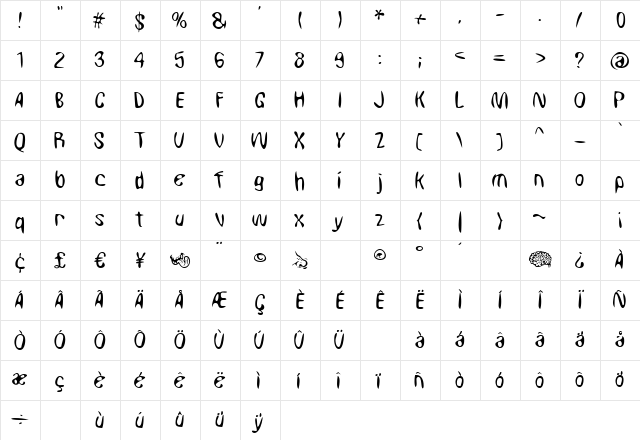
Squidly Medium Free Font
Squidly Medium
Design Context for Squidly
Squidly is a composed and adaptable typeface that performs quietly and consistently across a wide range of design contexts.